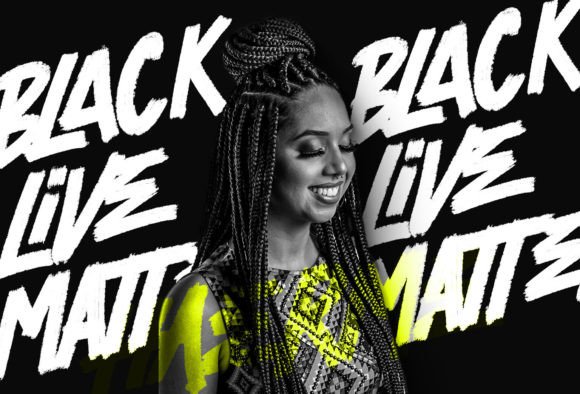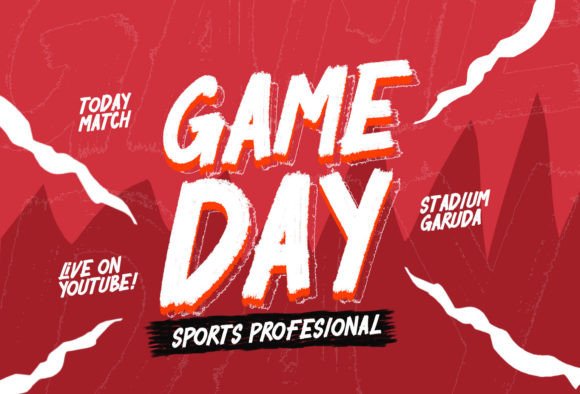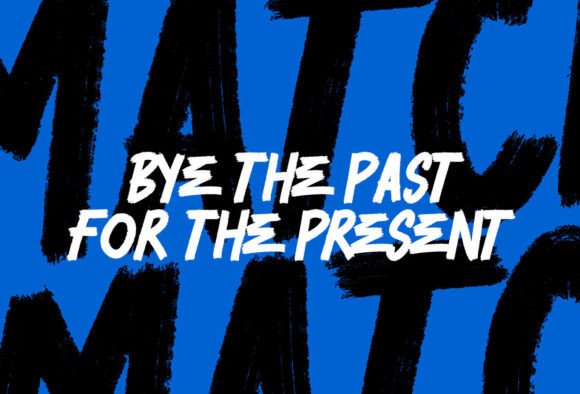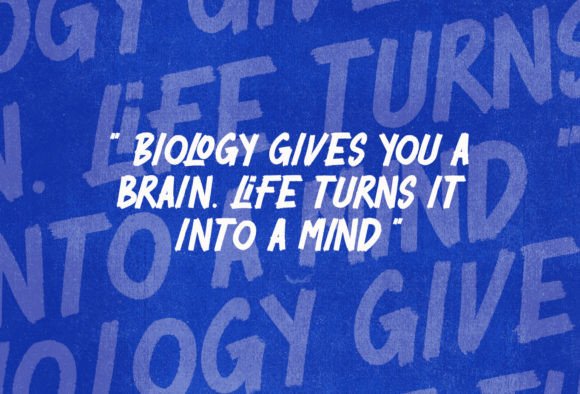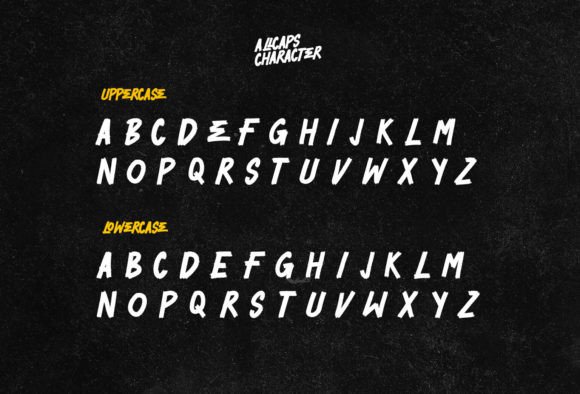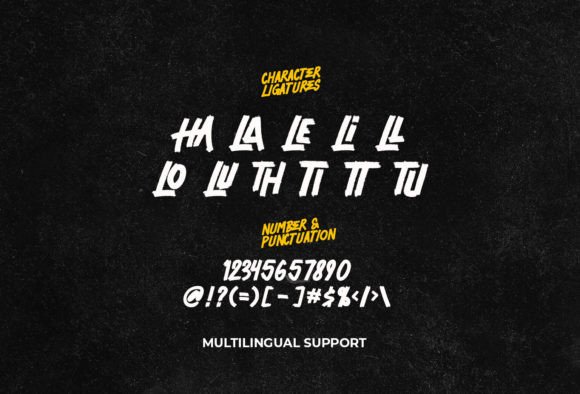
Introduction to Haerme Font
Introducing “HAERME,” an all-capital brush font that elevates your typography game.
Crafted by hand with meticulous care, each letter exudes a distinctive touch and texture that sets it apart This font is more than just letters—it’s a visual experience, where every character tells a story of creativity and individuality.
Key Features of Haerme Font
Why Choose Haerme Font?
Haerme Font offers exceptional quality and versatility, making it a valuable addition to your design toolkit. Whether you’re creating for personal projects or commercial use, Haerme Font delivers professional results.